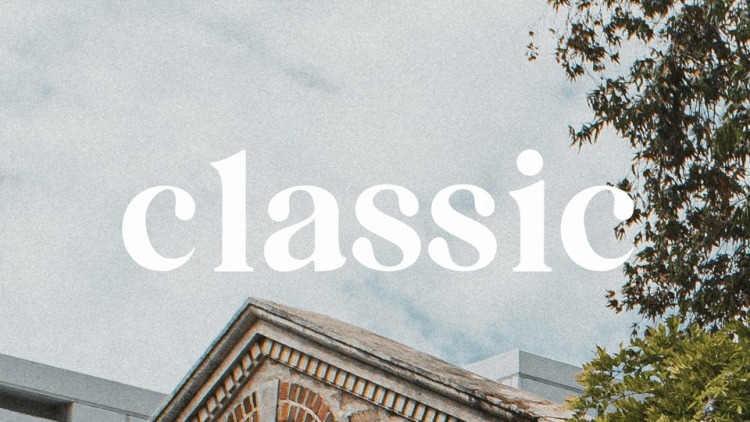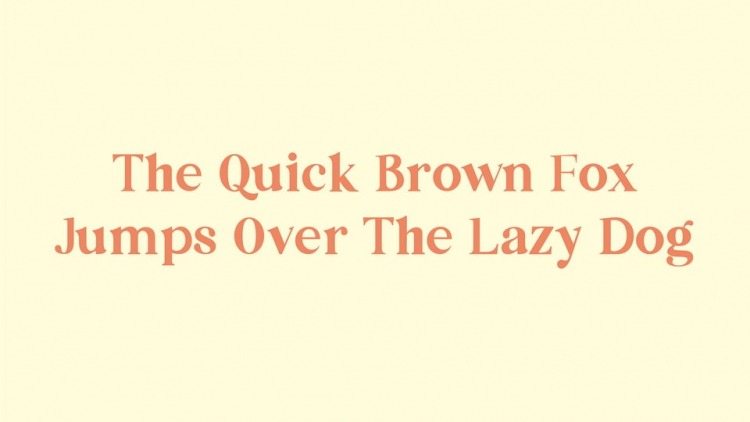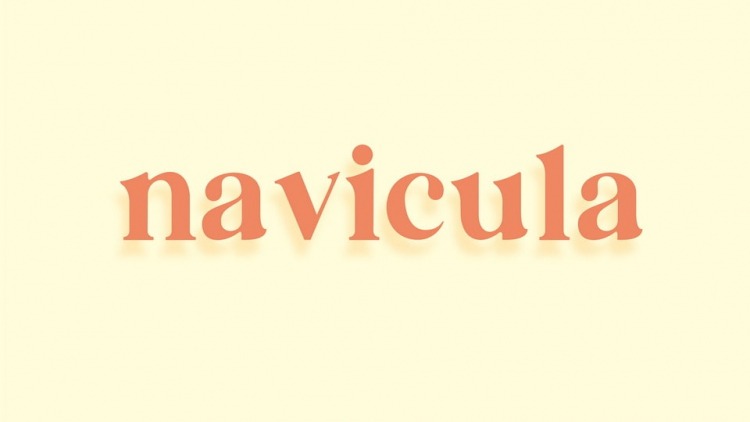
Navicula Serif Font is a modern and simple sans serif font to give your designs a more attractive appearance. With a subtle touch, this typeface can give an elegant look to any design. Witness the mix of classic and vintage curves and support multilingual font!